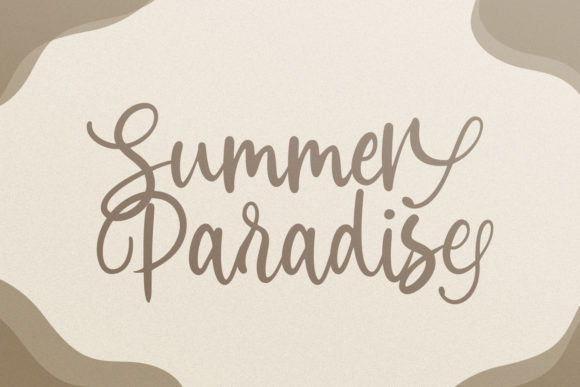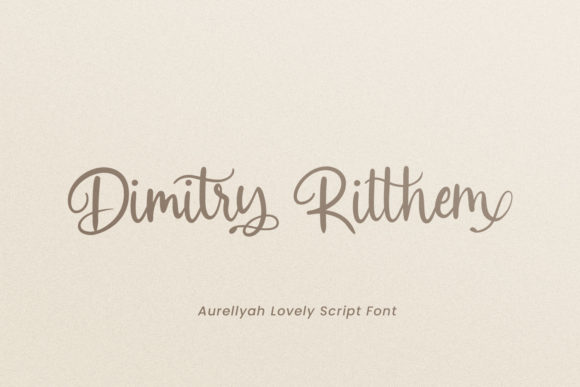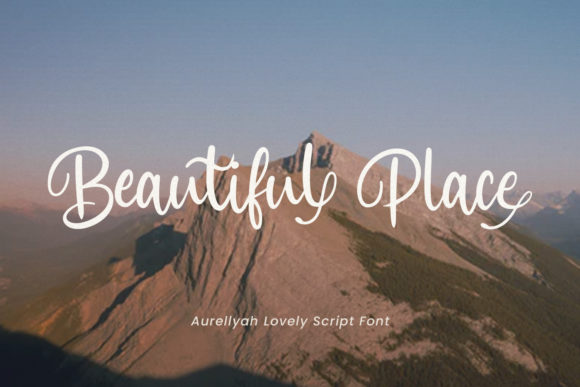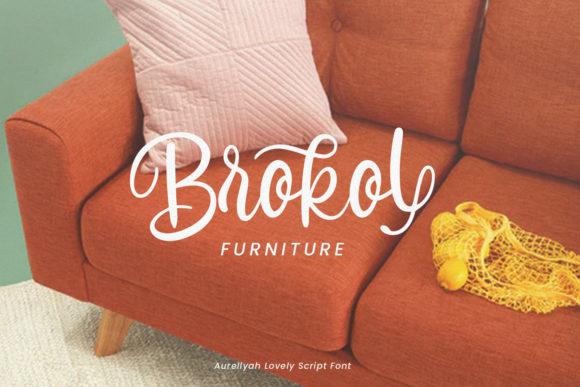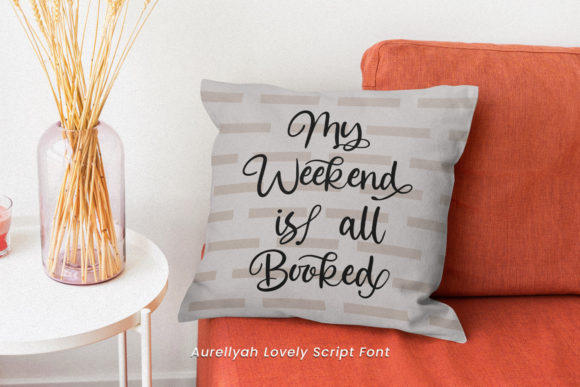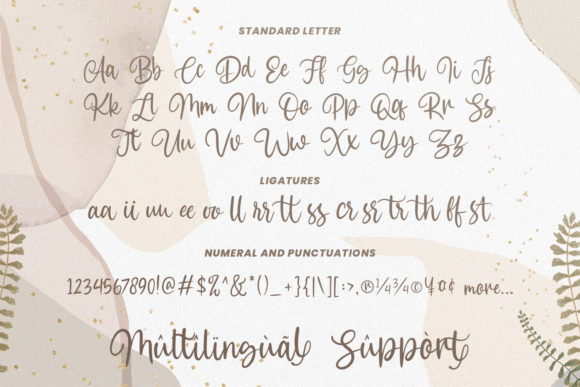
Aurellyah Script Font: Elevate Your Designs with Elegance and Sophistication
In the world of typography, a font can make or break a design. For designers and crafters seeking to add a touch of elegance and sophistication to their projects, the Aurellyah Script Font is an exquisite choice. This beautifully crafted handwritten font is designed to captivate and inspire, boasting a perfect blend of classic calligraphic influences and modern freshness.
The Beauty of Aurellyah Script Font
Aurellyah Script is a masterfully designed font that effortlessly exudes class and sophistication. Its intricate strokes and flowing lines are reminiscent of traditional calligraphy, yet it feels contemporary and fresh. This harmonious blend of old and new makes it an ideal choice for designers looking to create stunning visual content that stands out from the crowd.
One of the standout features of Aurellyah Script Font is its PUA (Private Use Area) encoding. This means that users can easily access a wide range of glyphs and swashes, allowing for greater creative flexibility and customization. Whether you’re designing a logo, creating a social media graphic, or crafting a beautiful wedding invitation, this font provides the perfect tools to bring your vision to life.
Key Features of Aurellyah Script Font
- Exquisite Handwritten Design: Aurellyah Script boasts a beautifully crafted handwritten design that is both elegant and sophisticated.
- Classy Calligraphic Influences: The font maintains its classic calligraphic influences, ensuring a timeless and refined look.
- Contemporary and Fresh: Despite its traditional roots, Aurellyah Script feels modern and fresh, making it perfect for a wide range of design applications.
- PUA Encoded: With PUA encoding, users can easily access a wide range of glyphs and swashes, allowing for greater creative flexibility.
Aurellyah Script Font is an ideal choice for designers and crafters seeking to elevate their projects with a touch of elegance and sophistication. Whether you’re working on a commercial project or a personal craft, this font provides the perfect combination of style and versatility.
From stationery and branding to packaging and advertising, Aurellyah Script Font can be used in a wide range of design applications. Its unique and captivating design ensures that your visual content will stand out from the crowd, making it perfect for businesses and individuals looking to make a lasting impression.
Tips for Using Aurellyah Script Font
To get the most out of Aurellyah Script Font, here are a few tips to keep in mind:
- Experiment with Glyphs and Swashes: With PUA encoding, Aurellyah Script Font offers a wide range of glyphs and swashes. Experiment with different combinations to add unique touches to your design.
- Pair with Complementary Fonts: Aurellyah Script Font pairs beautifully with clean and simple fonts. Try pairing it with a sans-serif font to create a striking contrast.
- Use for Headings and Titles: Aurellyah Script Font is perfect for headings and titles. Its elegant design ensures that your text will stand out and grab attention.
| Font Name | Aurellyah Script Font |
| Author | TempCraft |
In conclusion, Aurellyah Script Font is a stunning handwritten font that offers a perfect blend of elegance, sophistication, and creativity. Its exquisite design, classy calligraphic influences, and modern freshness make it an ideal choice for designers and crafters seeking to elevate their projects. With its PUA encoding and wide range of glyphs and swashes, Aurellyah Script Font provides the perfect tools to bring your vision to life.